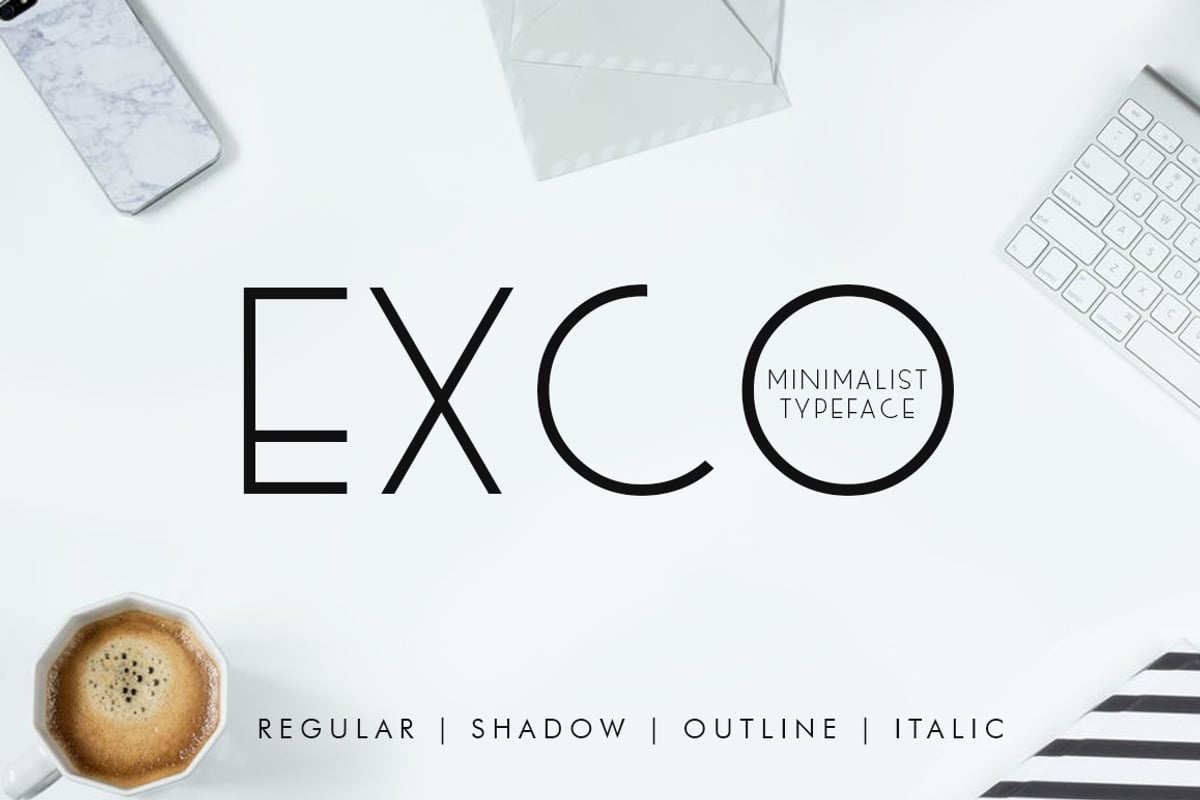
Exco (4 font)
Exco delivers sleek minimalist typography with four versatile styles for maximum creative flexibility. This contemporary typeface features clean, geometric letterforms with awesome character design. Perfect for creating professional branding materials, eye-catching posters, magazine layouts, business cards, banners, t-shirt designs, and bold headers. Whether you're designing large-scale artwork or intimate branding elements, Exco's four distinct styles give you the creative range you need: Regul...